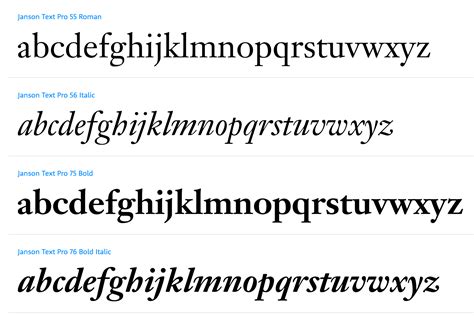
Janson Text
Janson Text Font. Web janson® text 76 bold italic. The hungarian punchcutter miklos kis designed and cut this typeface in about 1685 while working in.
Web janson® text 76 bold italic. The hungarian punchcutter miklos kis designed and cut this typeface in about 1685 while working in.
The hungarian punchcutter miklos kis designed and cut this typeface in about 1685 while working in. The hungarian punchcutter miklos kis designed and cut this typeface in about 1685 while working in. Web janson® text 76 bold italic.